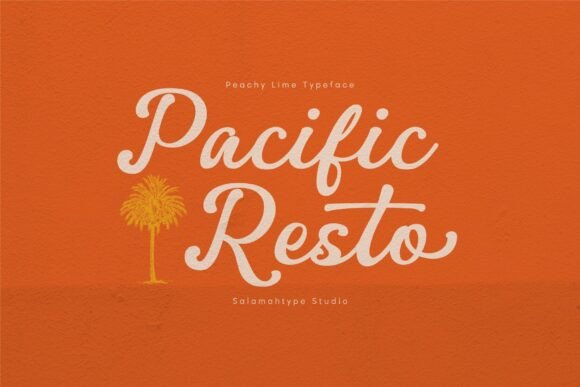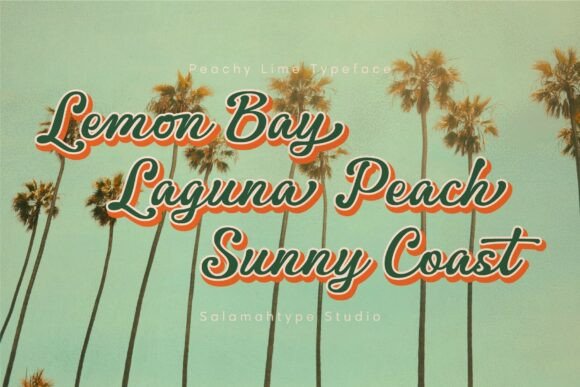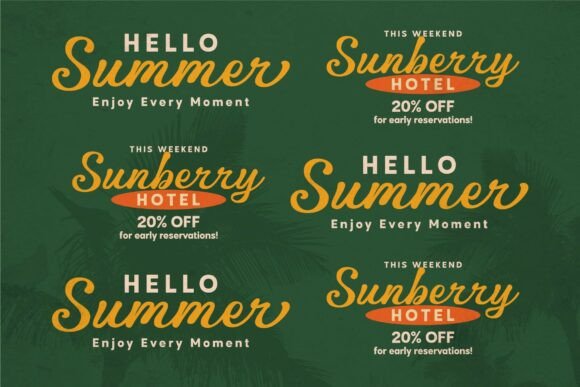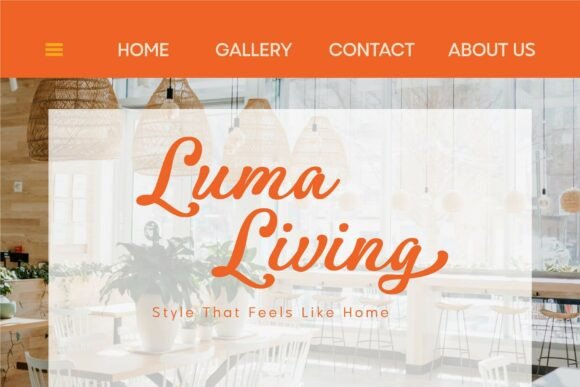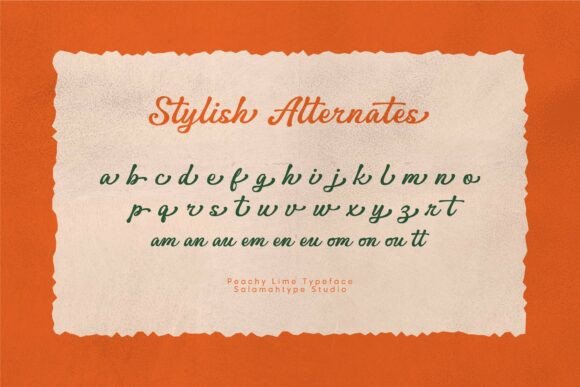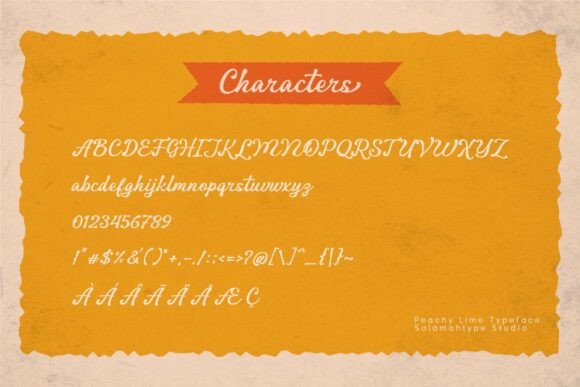
Introduction to Peachy Lime Font
Have you ever been browsing through a vintage store or flipping through old photographs, and suddenly, a wave of nostalgia washes over you? That’s exactly the feeling you get when you use the Peachy Lime Font in your creative projects. This delightful font is a masterful blend of retro charm and modern sophistication, making it the perfect design resource for anyone looking to add a touch of whimsy to their work.
As a designer, you’re always on the lookout for high-quality fonts that can elevate your designs and give them that extra oomph. And, let’s be honest, who doesn’t love a free download that’s just as good as the paid ones? The Peachy Lime Font is one such gem that’s sure to become a staple in your design arsenal. With its transparent background and wide range of glyphs, it’s perfect for creating eye-catching graphics, logos, and packaging that scream summer vibes.
Key Features of Peachy Lime Font
- Unique Characteristic: The Peachy Lime Font features a vibrant and playful combination of peach and lime colors, making it perfect for creative projects that require a fun and energetic vibe.
- High-Quality Design: This font is designed with precision and care, ensuring that it meets the highest standards of quality and legibility.
- Transparent Background: The font’s transparent background allows for easy customization and layering in design projects, making it a versatile design resource.
- Perfect for Creative Projects: The Peachy Lime Font is ideal for use in creative projects such as logos, branding materials, social media graphics, and more.
Honest Review: Peachy Lime Font
I recently came across the Peachy Lime Font, and I’m excited to share my thoughts on this design resource. As a designer, I’m always on the lookout for high-quality fonts that can elevate my creative projects.
Here are some things that work well with the Peachy Lime Font:
- ✨ Unique and playful style that’s perfect for adding a pop of color to designs
- ✨ Includes a transparent background option, making it easy to use in various design applications
- ⚠️ Limited font styles and weights available, which may not be suitable for complex design projects
- ⚠️ Some users may find the font’s playful style too kitschy or overused
Overall, I think the Peachy Lime Font is a great addition to any designer’s toolkit, especially for smaller creative projects or social media graphics. While it may not be suitable for every design application, it’s a free and high-quality resource that’s definitely worth checking out.
Tips for Getting the Most Out of the Peachy Lime Font
For the best results, use the Peachy Lime Font on a transparent background to create a clean and modern design. You can also experiment with different font sizes and colors to create a unique and eye-catching visual effect.
The Peachy Lime Font is ideal for use in a variety of creative projects, including social media graphics, blog posts, and marketing materials. Its high quality and versatility make it a great design resource for anyone looking to add a touch of personality to their designs.
Alternatives to Peachy Lime Font
Yes, the Peachy Lime Font comes with a transparent background, making it easy to use with any design element or background. This feature allows for seamless integration and customization in your design project.